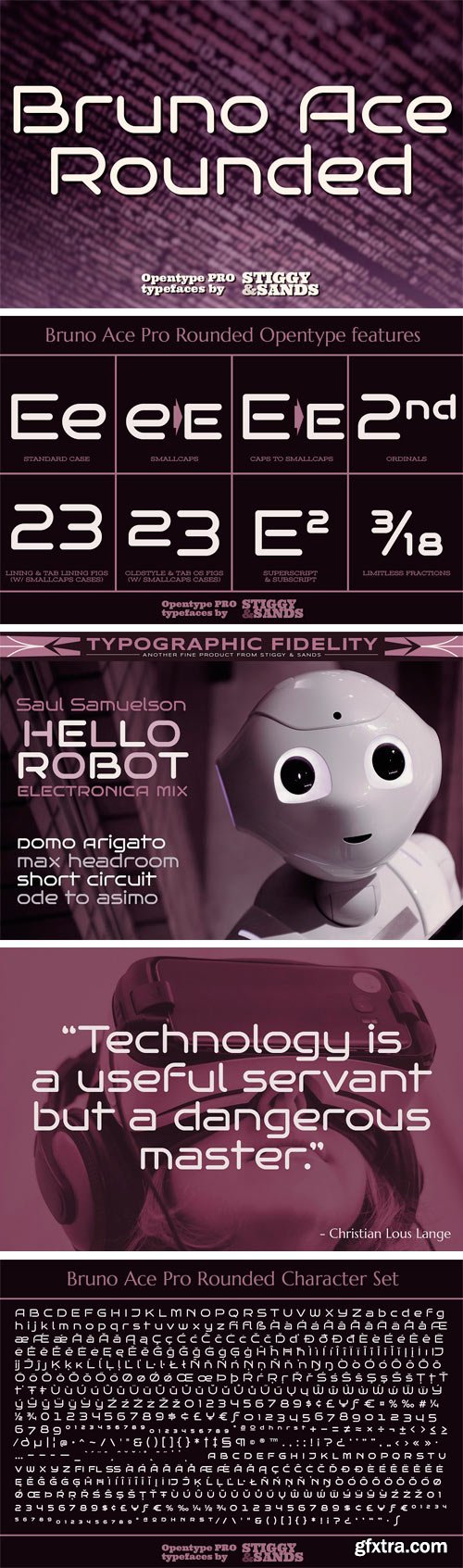
Bruno Ace Rounded Pro is a fresh derivative of our Bruno Ace Pro typeface. It draws its inspiration from modern automotive logotypes. This geometric sans-serif has a wide stance with a tall x-height for a strong look and appeal, as well as ease of legibility. The SmallCaps and extensive figure sets offer a more extensive range of use as well as a more intense vibe. Bruno Ace Rounded Pro has an obviously softer feel to it compared to the original.